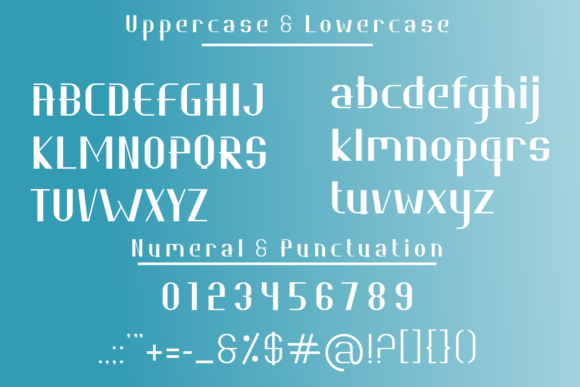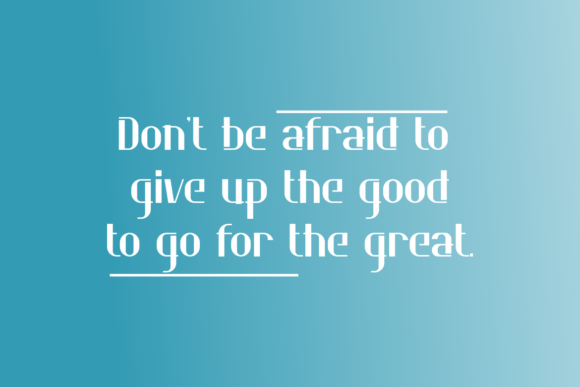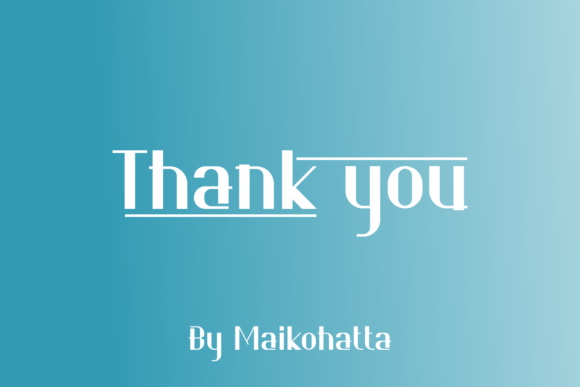
Introducing Alshani Font: The Modern Sans Serif for Creative Projects
In the world of typography, fonts play a crucial role in conveying messages, expressing emotions, and creating brand identities. For designers and crafters, finding the perfect font can be a daunting task. However, if you’re looking for a modern sans serif font that’s versatile and stylish, look no further than Alshani Font. In this article, we’ll explore the features, benefits, and uses of Alshani Font, and why it’s an excellent choice for your next creative project.
What is Alshani Font?
Alshani Font is a contemporary sans serif font designed to meet the needs of modern designers and crafters. Its clean lines, simple shapes, and elegant curves make it an excellent choice for a wide range of applications, from branding and logos to t-shirt printing, esports, and more. The font’s versatility and legibility ensure that it can be used in various contexts, from digital media to print materials.
Key Features of Alshani Font
- Modern Design: Alshani Font boasts a sleek and modern design, making it perfect for projects that require a fresh and contemporary look.
- Sans Serif: The font’s sans serif design ensures that it’s clean, simple, and easy to read, even at small sizes.
- Versatile: Alshani Font is suitable for a wide range of applications, including logos, t-shirt printing, esports, and more.
- Legible: The font’s clear and elegant curves make it easy to read, even in long texts.
Benefits of Using Alshani Font
So, why choose Alshani Font for your next project? Here are some benefits of using this lovely font:
- Unique Identity: Alshani Font helps create a unique identity for your brand, product, or service, setting it apart from the competition.
- Professional Look: The font’s modern design and clean lines give your project a professional look, perfect for businesses, organizations, and individuals.
- Flexibility: Alshani Font can be used in various contexts, from digital media to print materials, making it an excellent choice for multi-channel projects.
- Ease of Use: The font is easy to read and understand, ensuring that your message is conveyed effectively to your audience.
Use Cases for Alshani Font
Alshani Font is an excellent choice for a wide range of projects, including:
- Logo Design: Create a unique and memorable logo for your brand, using Alshani Font’s modern design and clean lines.
- T-Shirt Printing: Design eye-catching t-shirts with Alshani Font, perfect for esports teams, events, or merchandise.
- Esports: Use Alshani Font to create professional-looking esports branding, including team logos, jerseys, and marketing materials.
- Digital Media: Apply Alshani Font to your digital media projects, such as social media graphics, website headers, and more.
FAQs About Alshani Font
- What type of font is Alshani Font? Alshani Font is a modern sans serif font.